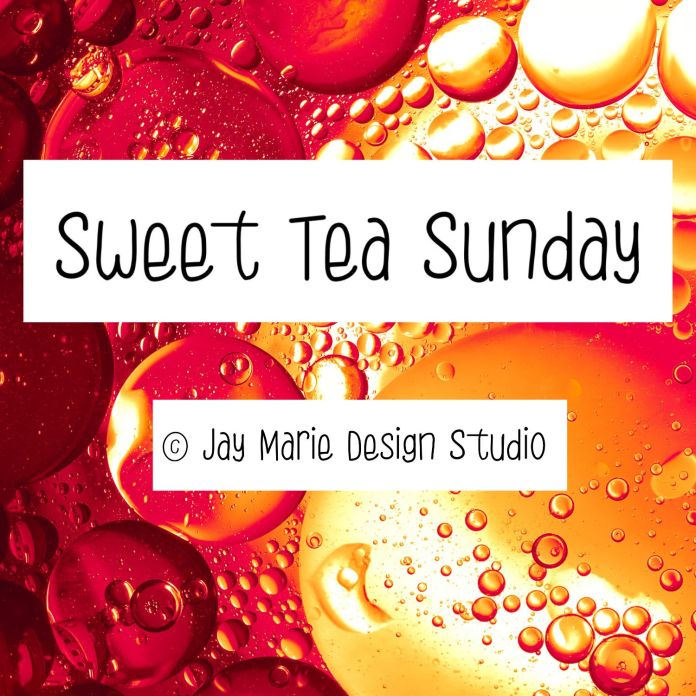
Sweet Tea Sunday" is a charming hand-drawn font that exudes sunshine and playfulness. Its whimsical curves and childlike design make it perfect for projects that need a cheerful and lighthearted touch. Ideal for children's books, party invitations, classroom materials, greeting cards, and playful branding, this font brings a sense of fun and warmth to any design. Whether you're creating digital graphics, stationery, or craft projects, "Sweet Tea Sunday" delivers a delightful, sunny vibe that feels like a perfect weekend afternoon.